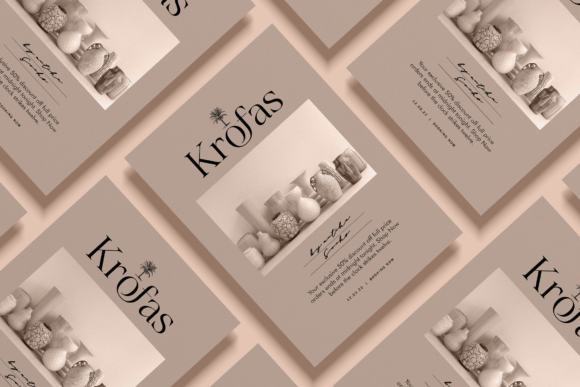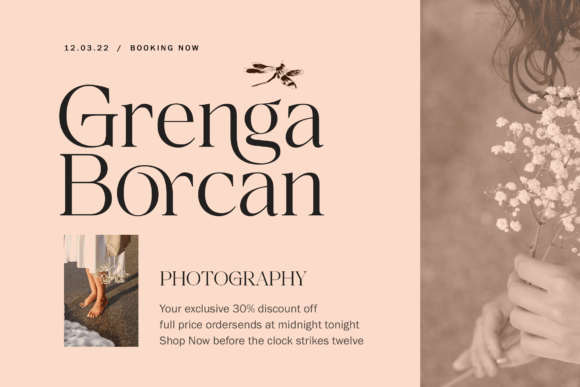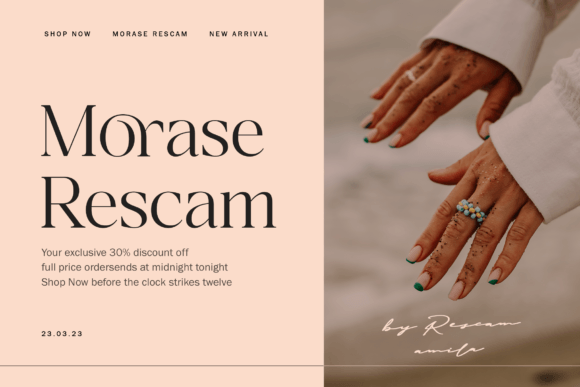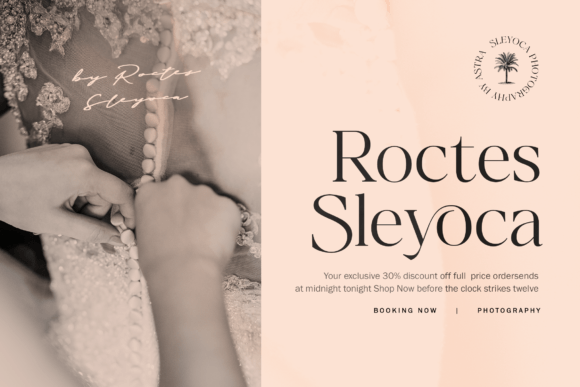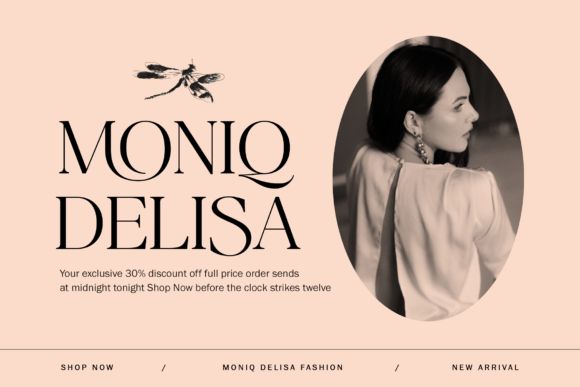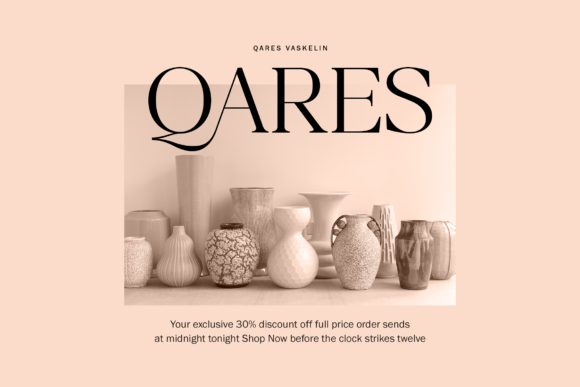
Introduction to Santorizo Font Font
Fonts play a crucial role in design, and the Santorizo Font font is a typeface that brings both character and versatility to any project. Whether you’re working on a branding project, a website, or a print design, the Santorizo Font font offers a unique style that can elevate your work.
Santorizo – A Stunning Beauty Ligature Serif Font with Extra Features, adding a Touch of Elegance and Creativity to Your Design Projects.
Santorizo is a stunning beauty ligature serif font that adds a touch of elegance and creativity to your design projects This font is perfect for a wide range of design projects, including magazines, books, invitations, logos, and more.
Key Features of Santorizo Font Font
Why Choose Santorizo Font Font?
The Santorizo Font font is more than just a typeface – it’s a design tool that helps you communicate your message with style and clarity. Its unique character set and versatile design make it suitable for a wide range of applications, from elegant invitations to bold headlines.
With its carefully crafted letterforms and balanced proportions, the Santorizo Font font ensures readability and visual appeal across all mediums.
What makes Santorizo Font font special?
The Santorizo Font font stands out with its unique design, exceptional readability, and versatility across various design applications.